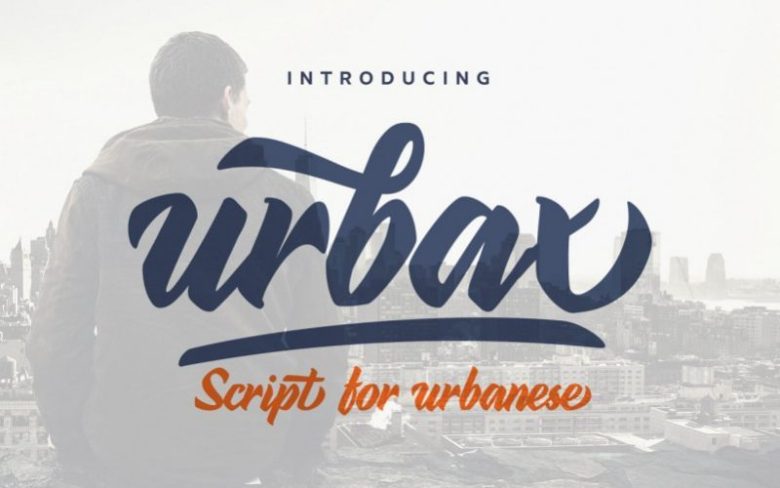
Urbax Script Font
Urbax Bold expressive script for urban people and urban project. Fit for Logos, Brand, Titling, Shirt, Hoodie, Products, Signage, Prints and Various Creative Projects. Contain 5 stylistic sets with lot of alternates that can be access with opentype savvy apps. Contain basic latin multilanguage support.